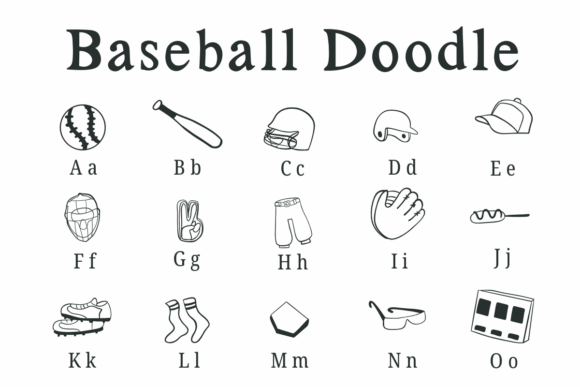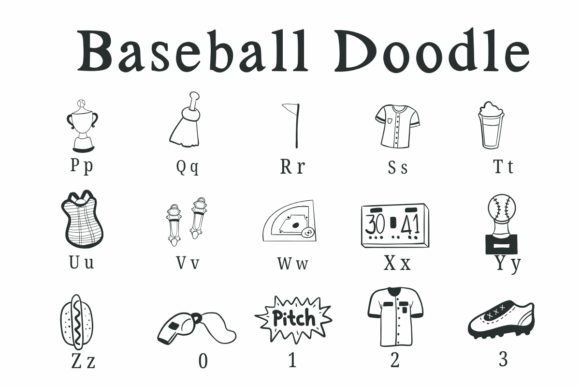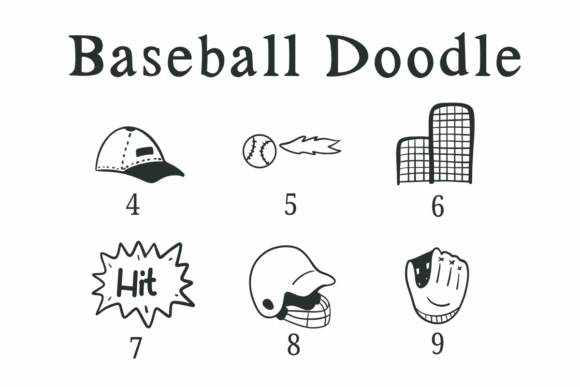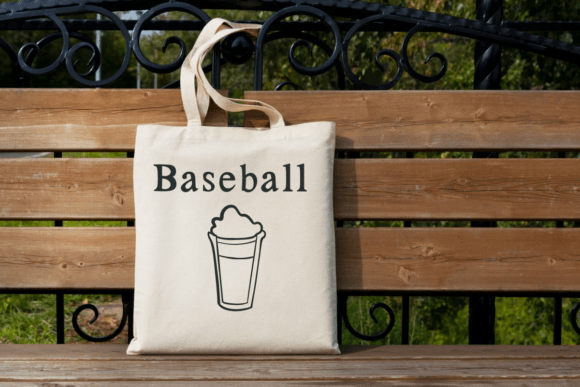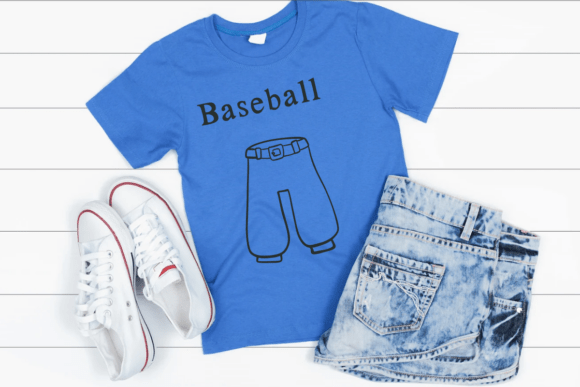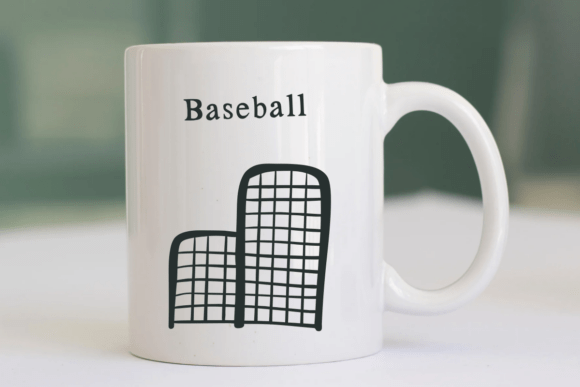
Sketching a Winning Design with the Baseball Doodle Font
You’ve spent hours brainstorming the perfect idea for your friend’s wedding invitation, and finally, you have a concept that’s a home run. But now, it’s time to bring your vision to life. That’s where the Baseball Doodle Font comes in – a unique dingbats font that’s perfect for adding a personal touch to your creative projects.
This sketched-style font is more than just a pretty face; it’s a valuable tool for designers looking to add a playful, whimsical feel to their work. Whether you’re crafting DIY decorations, logos, or wedding invitations, the Baseball Doodle Font is sure to bring a smile to your clients’ faces.
Key Features of Baseball Doodle Font
- Unique Doodle Style: The Baseball Doodle Font features a playful, hand-drawn design with doodle-style illustrations of baseball elements, making it perfect for sports-themed projects.
- Character Count: The font contains a total of 250 characters, including uppercase and lowercase letters, numbers, and special characters.
- Unique Characters: The font includes custom-designed doodle elements, such as baseball bats, balls, and gloves, adding a touch of whimsy to any design.
Review of Baseball Doodle Font
Overall, I think the Baseball Doodle Font is a fun and creative addition to any project. It’s perfect for sports-themed designs, kids’ projects, or even retro-inspired art.
- The unique, hand-drawn style of the font is really engaging and eye-catching.
- The font is highly customizable, making it easy to adjust to fit your design needs.
- The bold lines and playful feel of the font make it perfect for headings and titles.
- The font is highly legible, even at smaller sizes.
- The font may not be suitable for formal or professional projects, as it has a somewhat playful feel.
- The font may not be ideal for text-heavy projects, as the hand-drawn style can make it difficult to read large amounts of text.
- The font may require some additional formatting to make it work well with other fonts.
I think the Baseball Doodle Font is a great addition to any designer’s toolkit, but it’s not a one-size-fits-all solution. It’s perfect for projects where you want to add a playful, whimsical touch, but it may not be the best choice for more formal or text-heavy projects.
Use the Baseball Doodle Font for creating fun and playful designs, such as invitations, posters, and social media graphics.
The Baseball Doodle Font is ideal for use in sports-themed designs, such as baseball cards, posters, and jerseys.
It can also be used in creative and playful designs, such as birthday invitations, party decorations, and social media graphics.
Use the font to add a fun and whimsical touch to your designs.